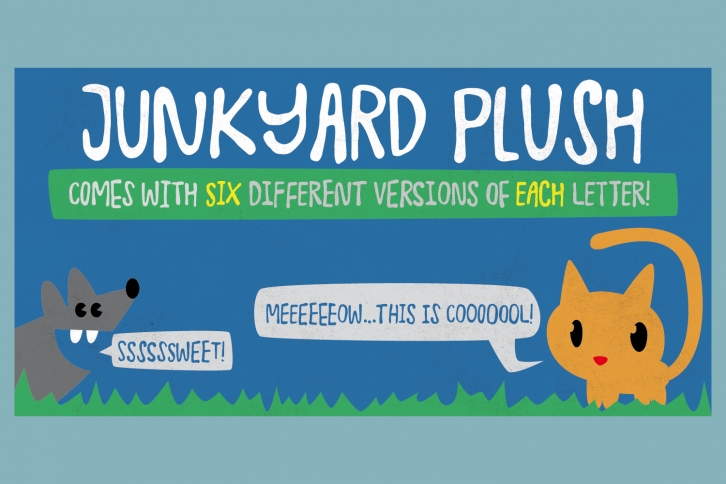
Junkyard Plush is a beautiful font that was designed by Jakob Fischer. It's a great choice for designers and creatives who need such a font. It was released on August 15, 2016 and the file size is 13.55 MB. Junkyard Plush may give a more youthful, expressive and casual look to your project. It is a very beautiful, refined, elegant, and high-quality font.